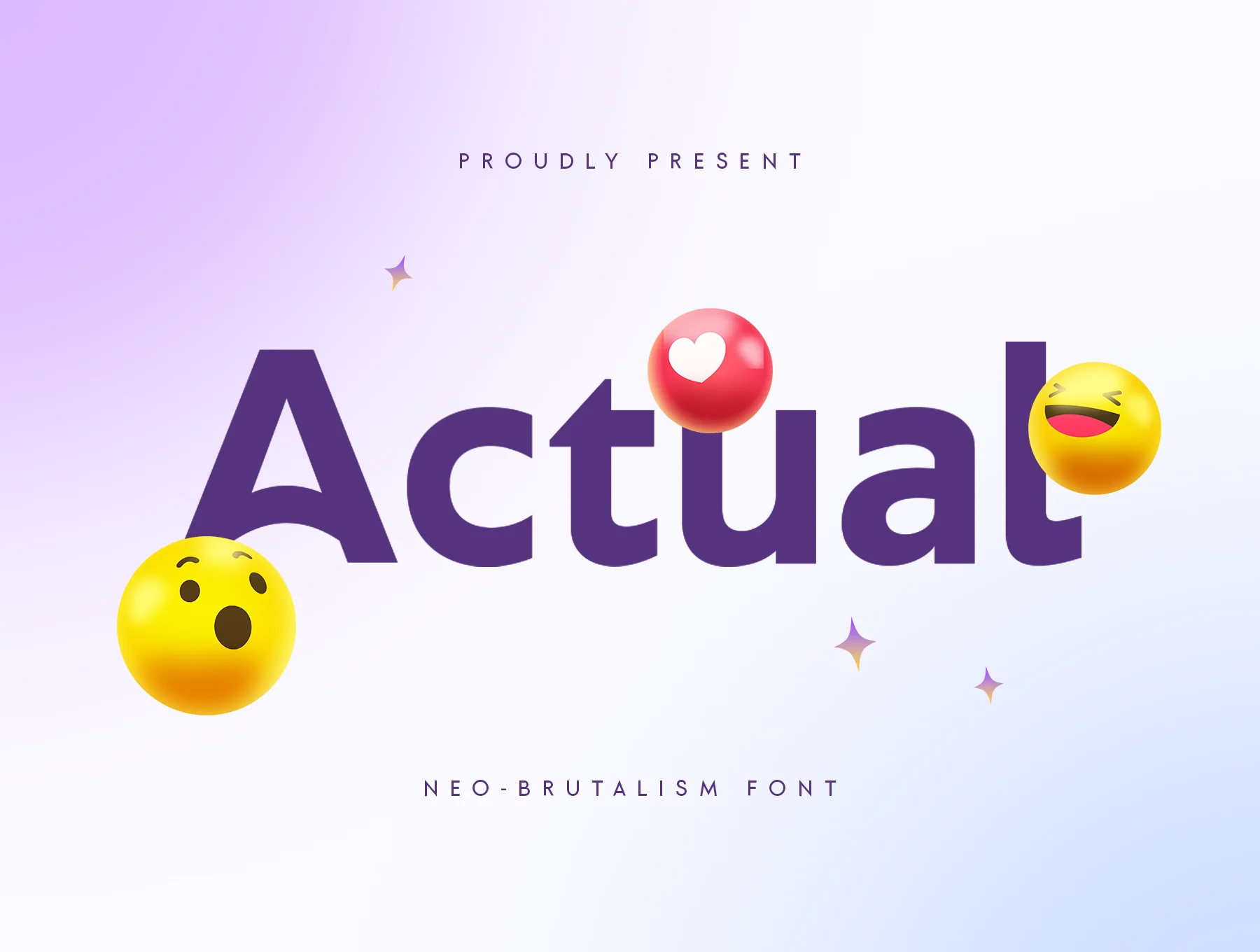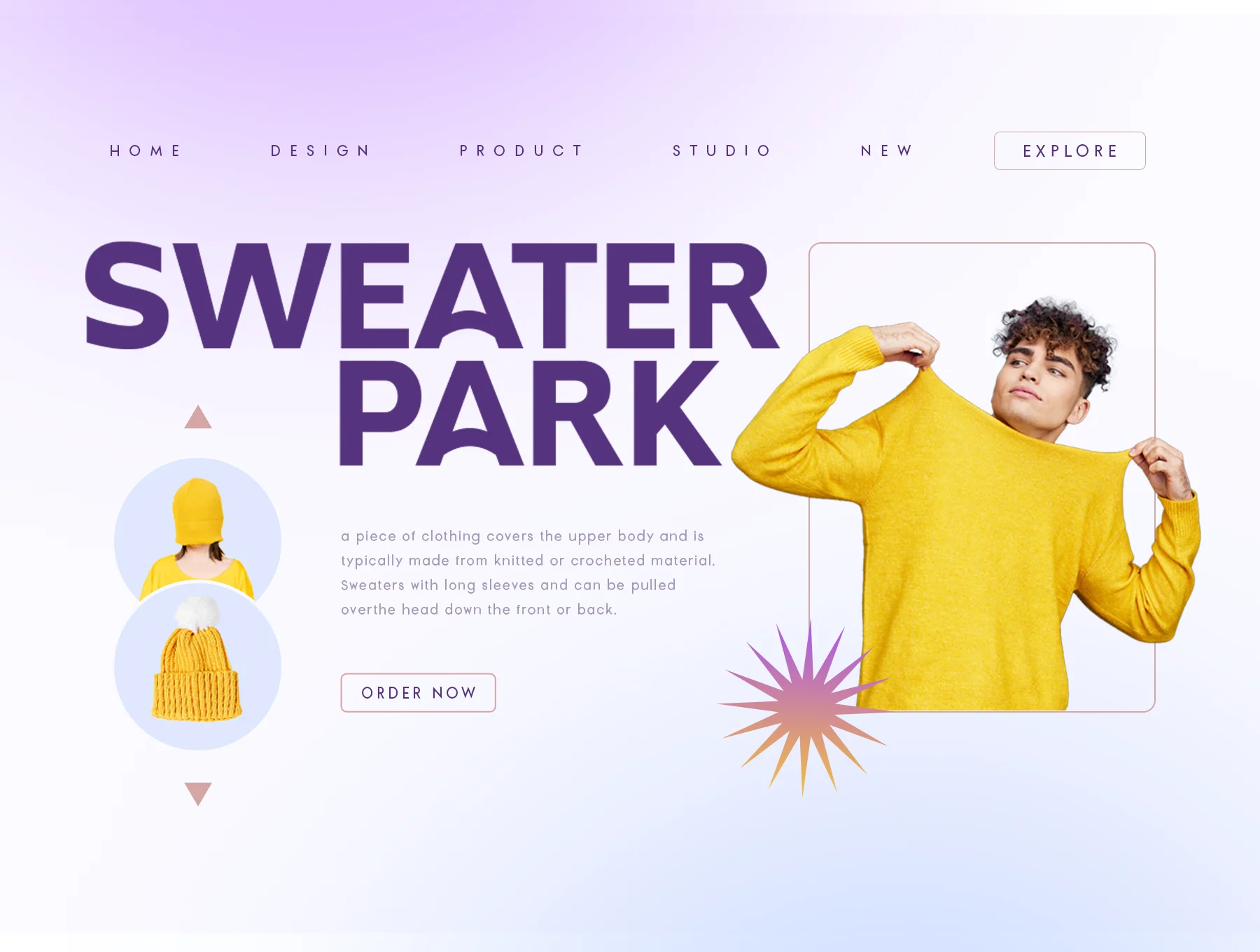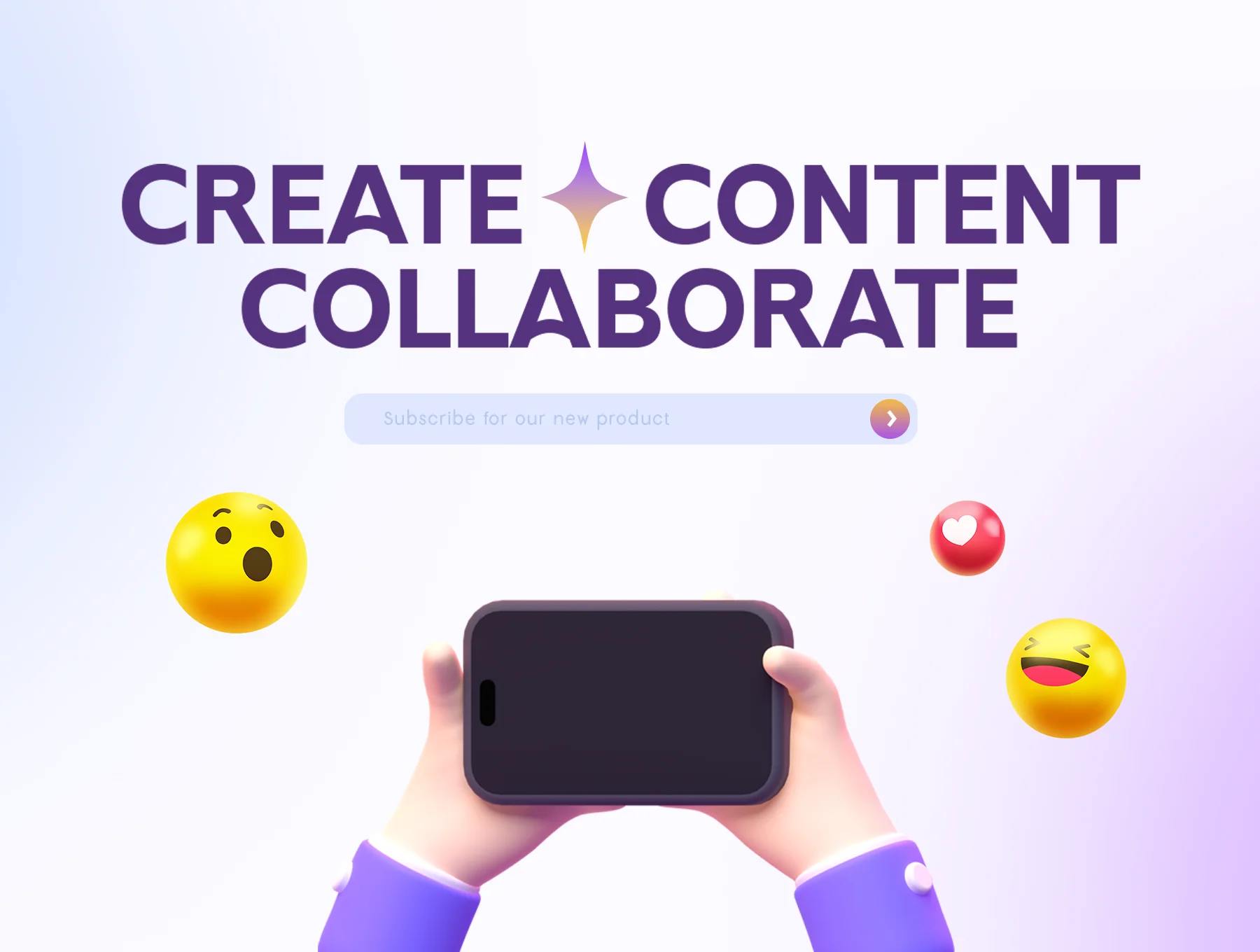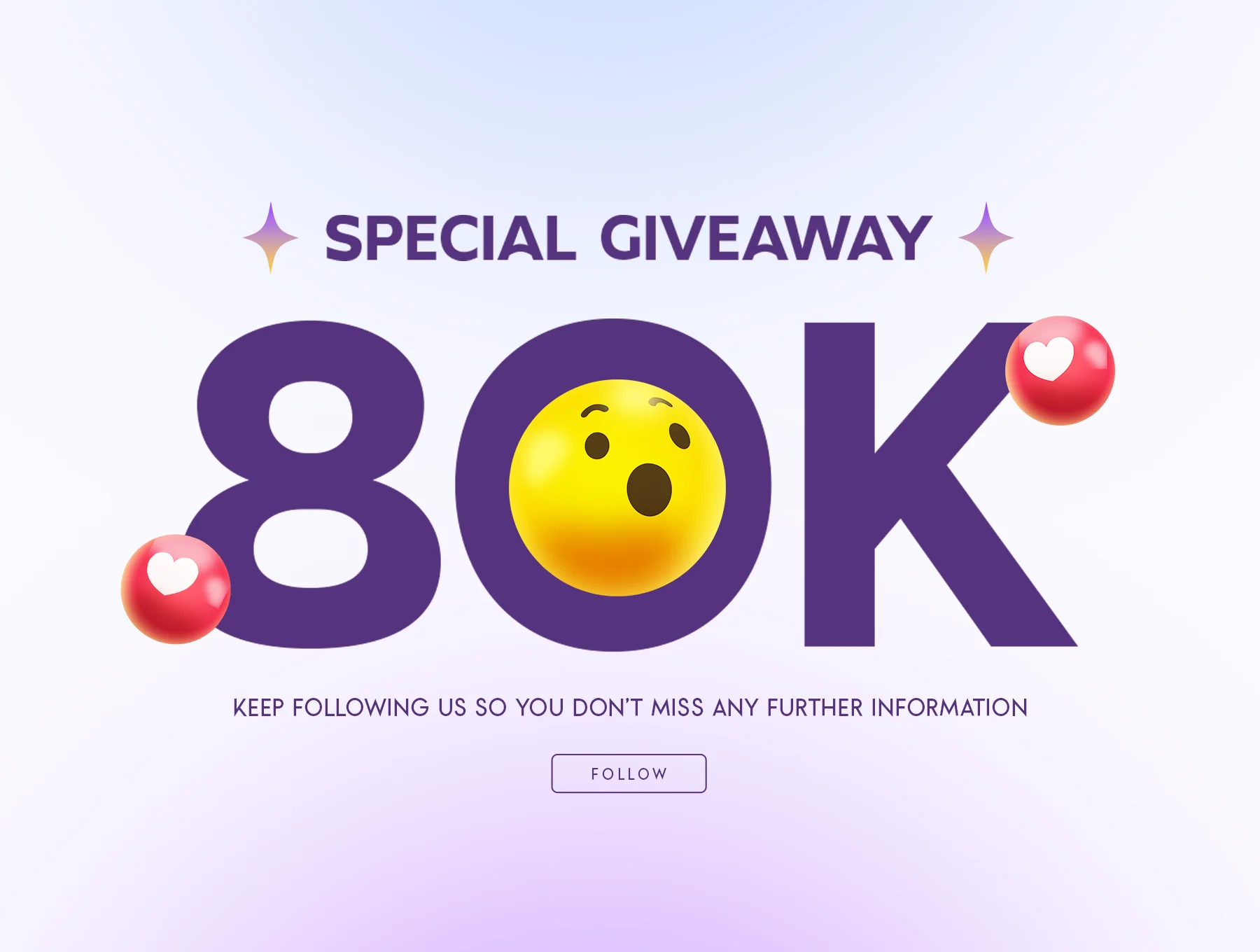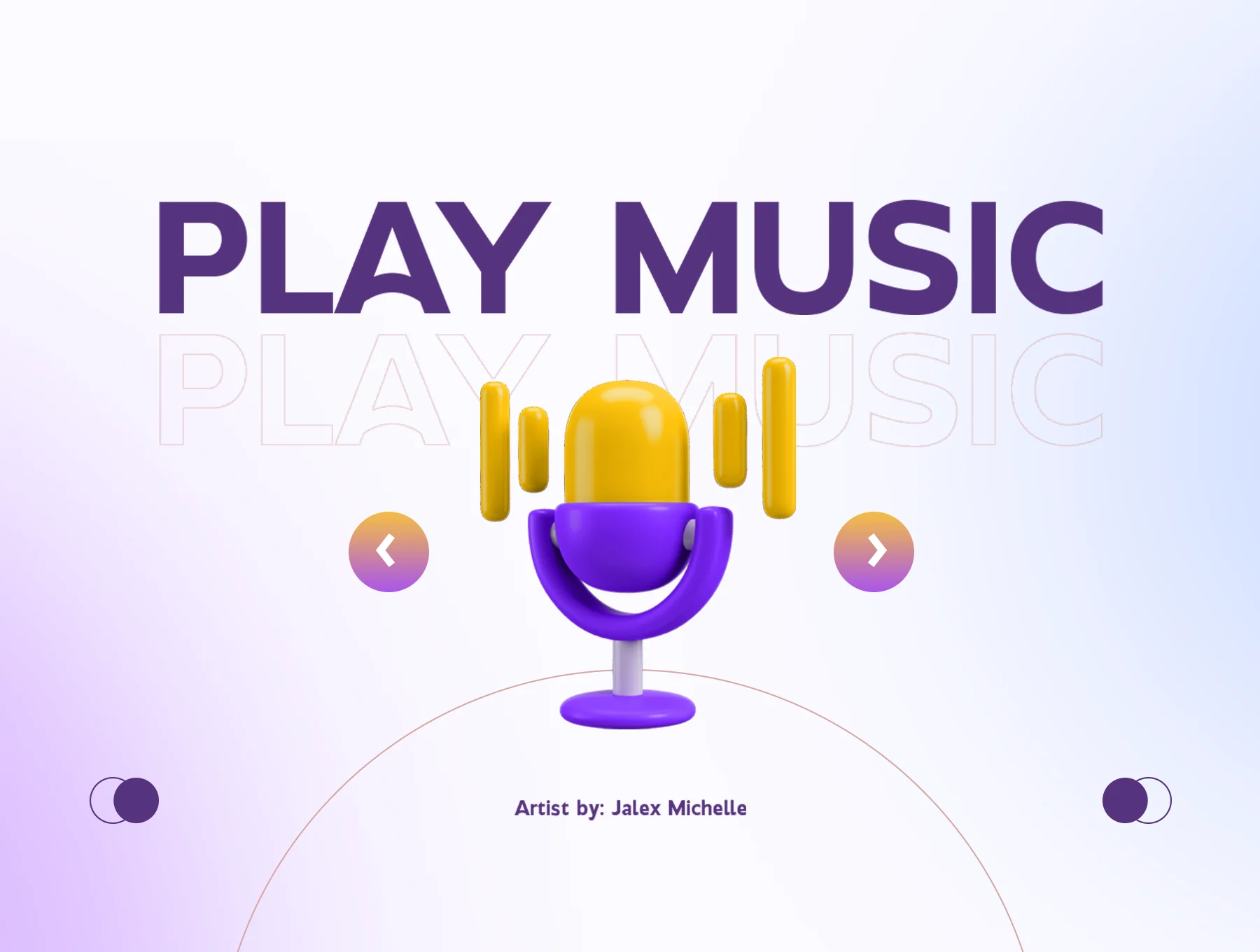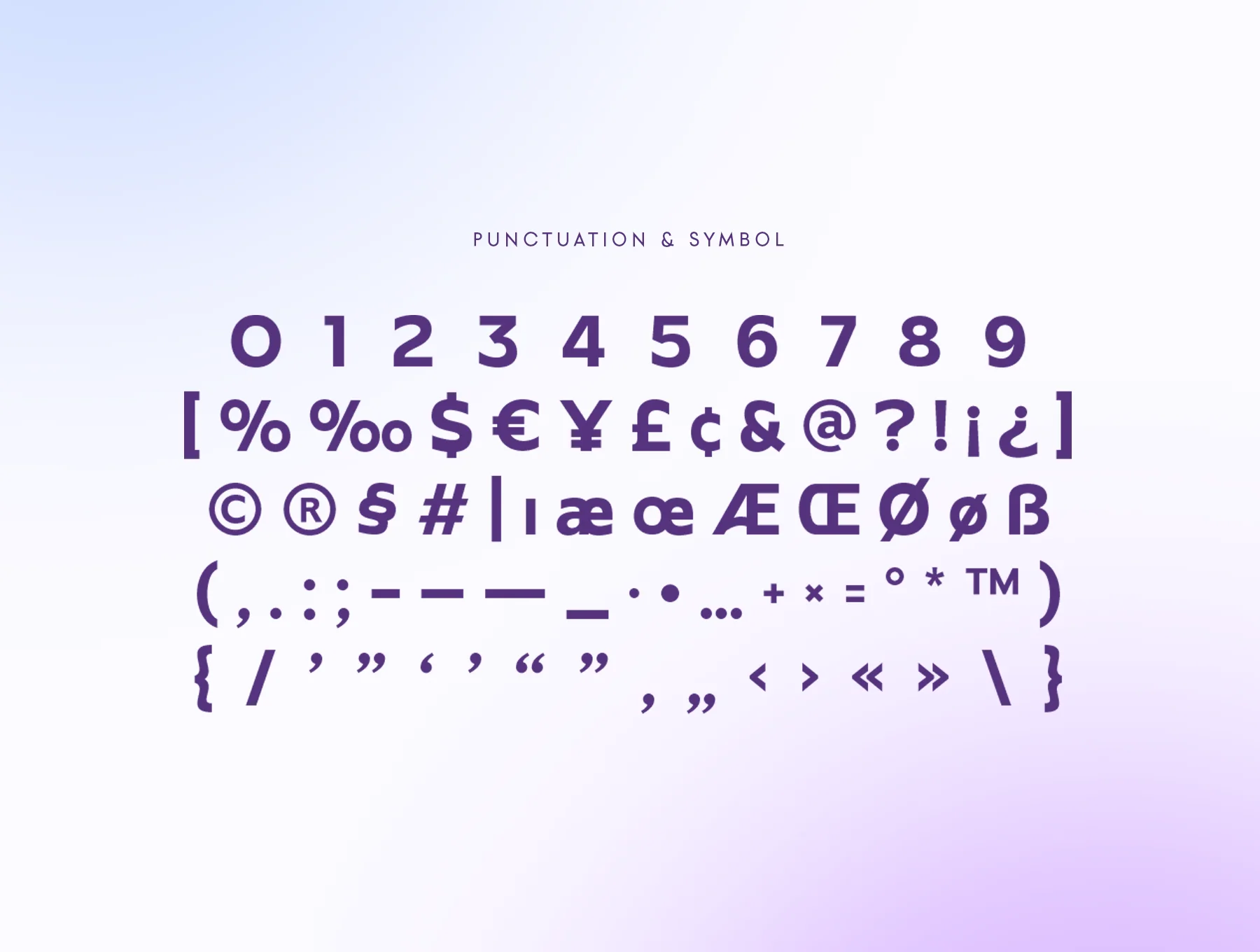
Actual Font
Neo-Brutalist Typeface
Distinct glyphs included
Alphabet range: A–Z
Numbers plus punctuation marks
Actual is a contemporary neo-brutalist sans serif with a clean corporate feel and cinematic edge. Mix characters to form distinctive shapes fast. Its strong readability fits headlines, thumbnails, branding, logos, posters, ads, packaging, labels, photos, watermarks, invitations, stationery, and more. Best used with Adobe Illustrator or Photoshop.